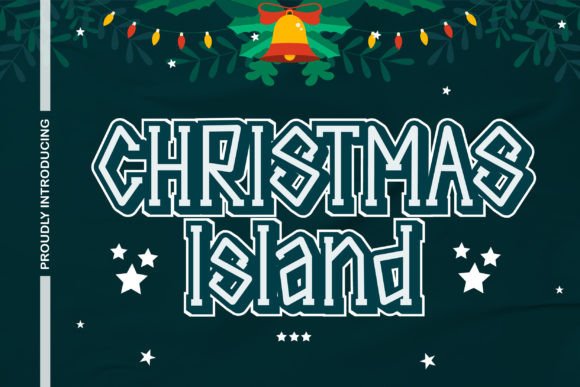
Journey to the Enchanting Realm of Christmas Island Font: Your Gateway to Creative Expression
In a world of monotonous fonts, Christmas Island Font emerges as a beacon of creativity, uniqueness, and charm. This captivating display font, meticulously crafted by the talented artisans at Patlot Digital.std, is not just a collection of letters and symbols; it's an invitation to embark on a visual odyssey.
Christmas Island Font belongs to the illustrious display font family, renowned for its expressive and visually striking nature. Each character in this font is meticulously designed to exude personality and charm, making it an ideal choice for projects that demand attention and desire to leave a lasting impression.
With its distinctive and playful style, Christmas Island Font is the perfect companion for a wide range of creative endeavors. Whether you're a seasoned graphic designer seeking to add a touch of whimsy to your designs or a passionate crafter searching for a font that brings your handmade creations to life, this font is your ultimate solution.
The versatility of Christmas Island Font knows no bounds. From whimsical Christmas brochures that evoke the magic of the holiday season to eye-catching New Year's t-shirts that spread joy and cheer, this font effortlessly adapts to diverse projects and themes. Its captivating nature ensures that your designs stand out from the crowd, leaving a lasting impression on your audience.
Christmas Island Font is more than just a font; it's an experience. Its enchanting characters dance across the page, inviting you to unleash your imagination and create masterpieces that resonate with your audience. Whether you're a seasoned professional or just starting your creative journey, this font will empower you to express your unique vision and leave an indelible mark on the world.
Don't settle for ordinary fonts that blend into the background. Embrace the magic of Christmas Island Font and embark on a creative adventure like no other. Let your designs radiate with personality, charm, and a touch of whimsy. Experience the transformative power of this remarkable font and watch your creations come alive with newfound brilliance.